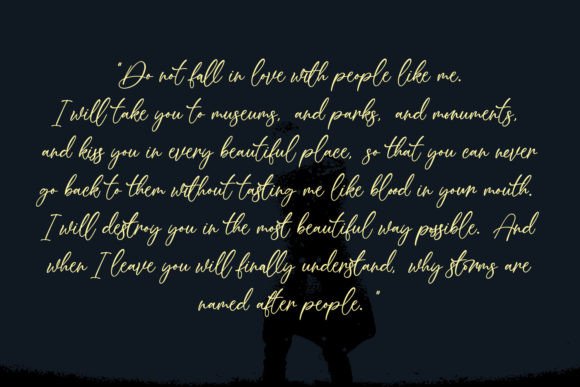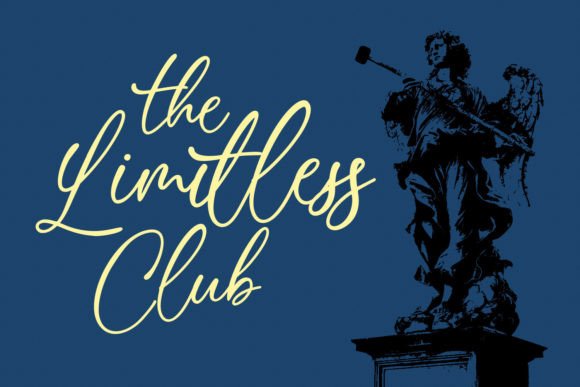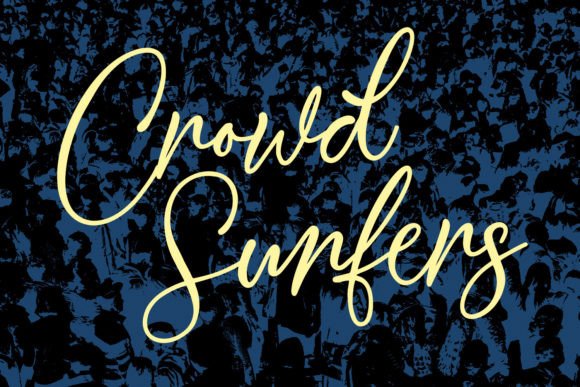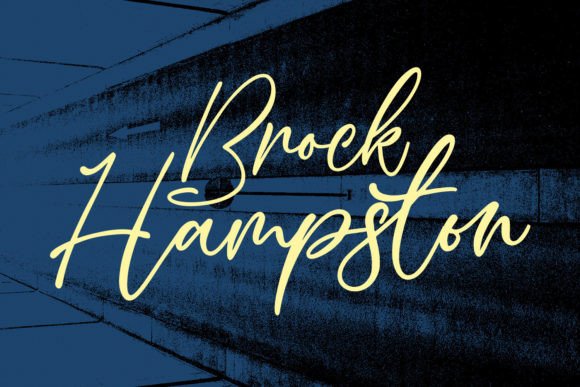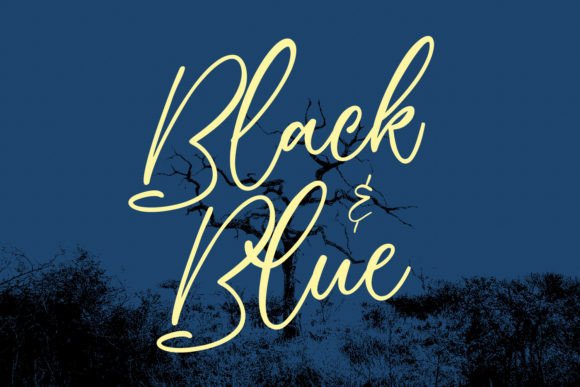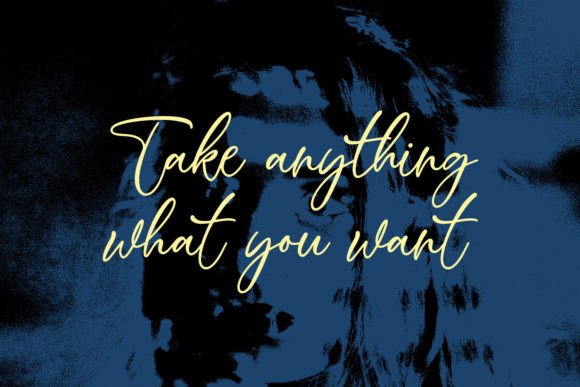
Frollyness Font: Elevate Your Creative Projects with a Casual Signature Script
Are you a designer, crafter, or DIY enthusiast looking for a font that can add a personal touch to your creative projects? Look no further than Frollyness, a beautiful casual signature script font that’s perfect for turning your ideas into works of art. In this article, we’ll explore the features and benefits of Frollyness, and show you how to make the most of this versatile font.
What is Frollyness Font?
Frollyness is a carefully crafted script font that mimics the elegance and charm of handwritten calligraphy. With its flowing lines, subtle curves, and whimsical flair, this font is designed to add a touch of personality to any design project. Whether you’re creating social media graphics, crafting DIY signs, or designing invitations, Frollyness is the perfect choice for anyone looking to add a dash of creativity and whimsy to their work.
Key Features of Frollyness Font
- Casual Signature Style: Frollyness boasts a relaxed, conversational tone that’s perfect for creating friendly and approachable designs.
- Script Elegance: With its smooth lines and flowing curves, this font exudes a sense of sophistication and refinement.
- Whimsical Flair: Frollyness features a range of subtle quirks and flourishes that add a playful touch to your designs.
- Highly Versatile: This font is suitable for a wide range of design projects, from social media graphics to print materials and DIY crafts.
Using Frollyness for Instagram and Social Media
In today’s digital age, having a strong visual presence on social media is crucial for designers, crafters, and DIY enthusiasts. Frollyness is an excellent choice for creating engaging Instagram graphics, Facebook posts, and Twitter headers. Its casual, conversational tone makes it perfect for connecting with your audience and adding a personal touch to your online presence.
Frollyness for DIY Projects and Crafting
If you’re a crafter or DIY enthusiast, you’ll love the creative possibilities that Frollyness offers. Use this font to add a personal touch to your handmade signs, gift tags, and other craft projects. With Frollyness, you can turn your DIY ideas into beautiful, professional-looking creations that showcase your skills and personality.
Tips for Getting the Most out of Frollyness
- Experiment with Colors: Frollyness looks great in a range of colors, from bold and bright to soft and pastel. Don’t be afraid to try out different color combinations to find the perfect look for your design.
- Play with Flourishes: This font features a range of subtle flourishes and swashes that can add a touch of elegance to your designs. Experiment with different flourish styles to find the one that works best for your project.
- Mix and Match with Other Fonts: Frollyness pairs well with a range of other fonts, from sans-serif and serif fonts to script and display fonts. Try combining Frollyness with other fonts to create a unique and eye-catching design.
Frollyness is a versatile and beautiful casual signature script font that’s perfect for designers, crafters, and DIY enthusiasts. With its elegant lines, whimsical flair, and highly versatile design, this font is sure to become a staple in your design toolkit. Whether you’re creating social media graphics, DIY signs, or crafting handmade gifts, Frollyness is the perfect choice for adding a personal touch to your creative projects.